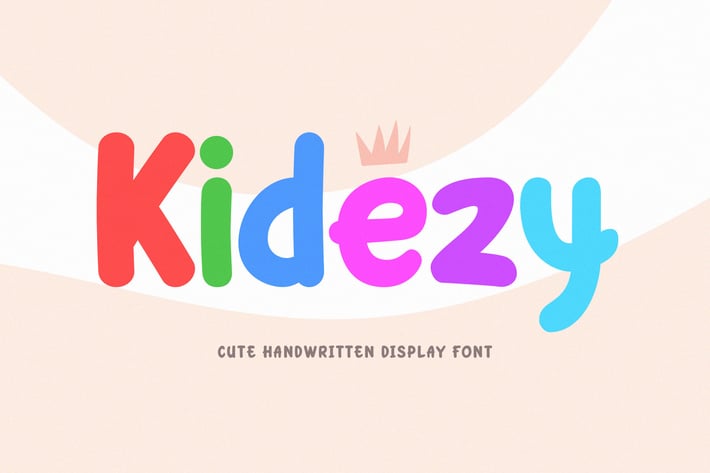
Kidezy - Cute Handwritten Display Font
Introducing Kidezy - Cute Handwritten Display Font.
Kidezy is a cute and simple font, best used as a display for headings, logos, branding, magazines, product packaging and invitations.